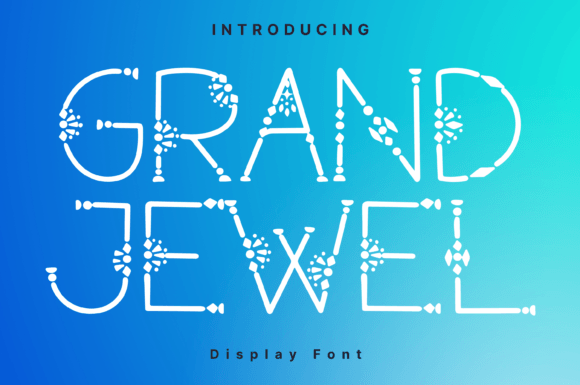
Introducing Grand Jewel Font - The Perfect Fusion of Whimsy and Charm for Your Creative Endeavors
In a world teeming with ordinary fonts, let Grand Jewel Font ignite your imagination and transform your creative projects into captivating masterpieces. This delightful decorative font, crafted with meticulous attention to detail by the talented AchiArt, is an enchanting symphony of playful curves and elegant strokes that will elevate your designs to new heights of charm and sophistication.
Welcome to the Realm of Grand Jewel Font - Where Playfulness Meets Elegance
With its whimsical and cute personality, Grand Jewel Font effortlessly adds a touch of lightheartedness to any project, whether it's a cheerful greeting card, an eye-catching social media post, or a whimsical poster. Its graceful lines and flowing characters invite you on a joyful journey of creativity, where every letter dances across the page, leaving a trail of enchantment in its wake.
Discover a Font that Adapts Like a Chameleon to Your Creative Visions
Grand Jewel Font possesses an uncanny ability to effortlessly adapt to a myriad of design styles and themes. Whether you're crafting a whimsical invitation for a birthday party, designing a magical logo for a children's boutique, or creating a captivating poster for an art exhibition, this font seamlessly blends with your vision, becoming an integral part of your creative expression.
Awaken Your Inner Artist with Grand Jewel Font
Unleash your creativity and let Grand Jewel Font be your artistic muse. This font is not just a collection of letters; it's a gateway to a world of endless possibilities. Its playful nature inspires you to think outside the box, to explore uncharted creative territories, and to bring your wildest dreams to life. With Grand Jewel Font, the ordinary becomes extraordinary, and the mundane transforms into the magnificent.